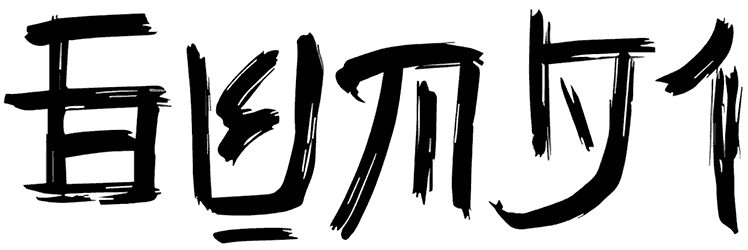
Gunji Font
There comes a time to time that you need a Japanese font to have an Asian effect on your content even though the language is English. In this case, easily use Gunji and achieve the result you were looking for.
Yes, it might be a little hard to read but this collection with letterforms for the uppercase alphabet, numbers, and punctuation marks even without lowercase is a bargain.
Gunji is an awesome chinese inspired display font. It has a great readability and will add a striking touch to any design!